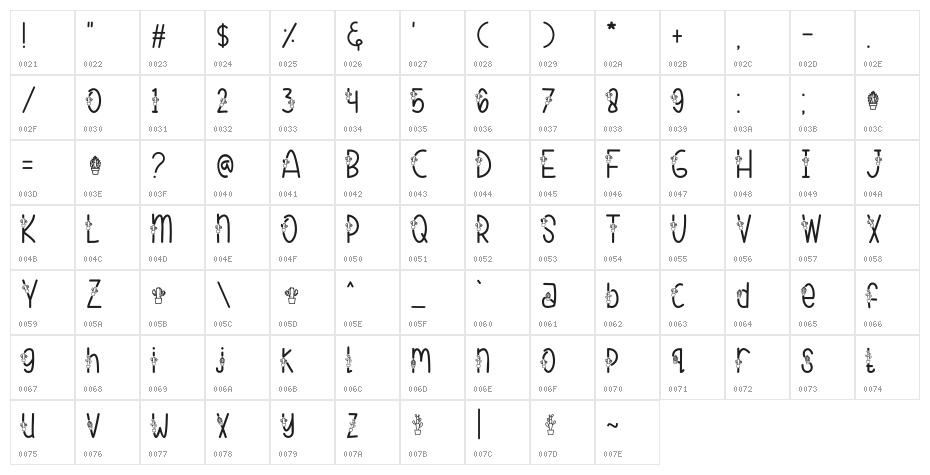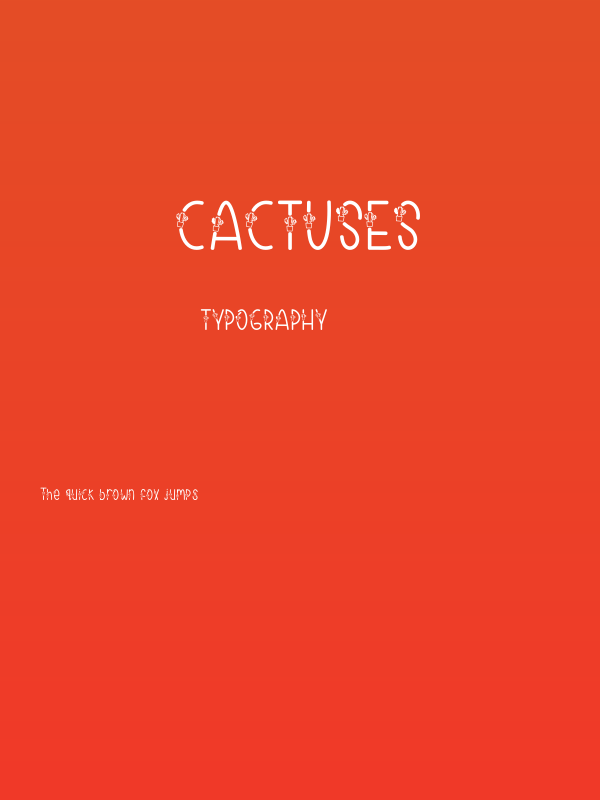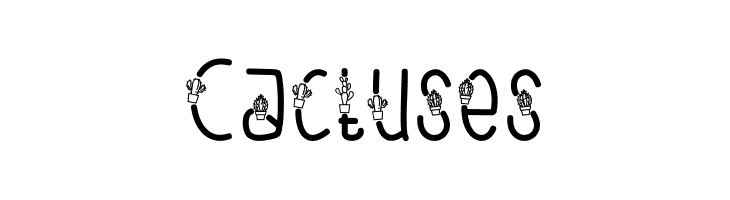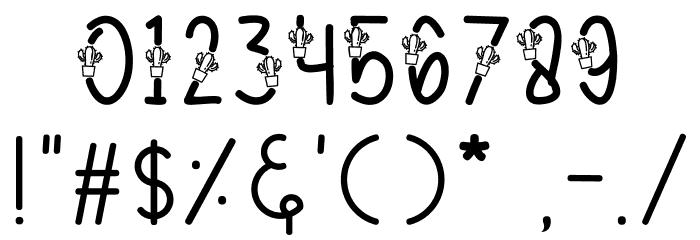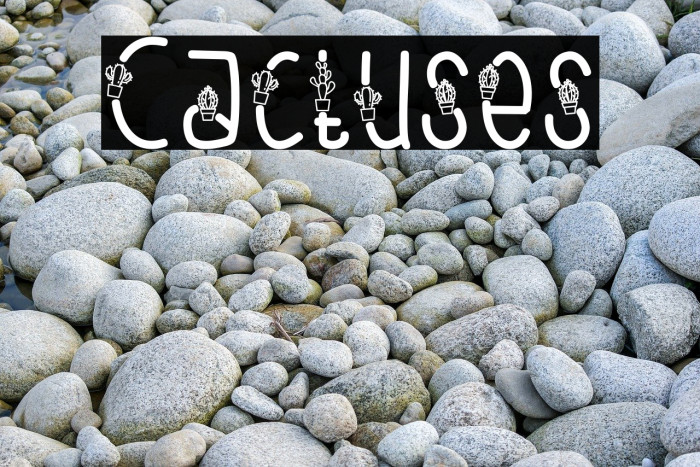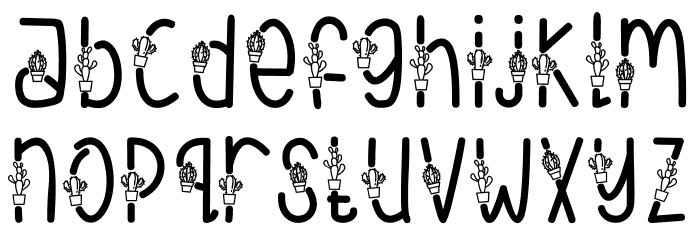
Cactuses Font
| Progetti proposti | Ideal for children's books, greeting cards, posters, and branding projects that seek a fun and nature-inspired aesthetic. |